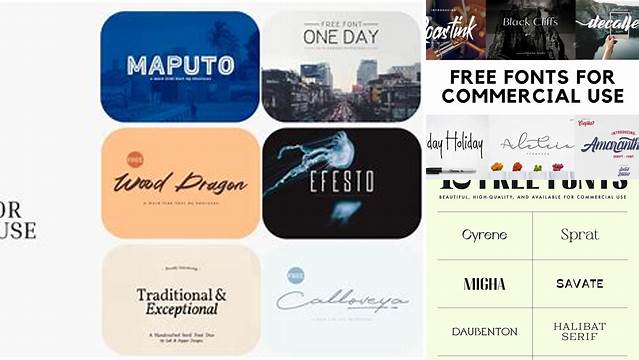
Free Fonts For Commercial Use: Top Typefaces
Hey guys! Finding the perfect font can be a game-changer for your projects, especially when you need something you can use commercially without breaking the bank. Let’s dive into the world of free typefaces for commercial use and explore some awesome options!
What are Free Fonts for Commercial Use?
Free fonts for commercial use are typefaces that you can use in projects that generate income, such as logos, websites, merchandise, and advertisements, without needing to pay any licensing fees. This is a fantastic resource for startups, freelancers, and anyone looking to create professional-looking designs on a budget. Unlike personal use fonts, which restrict usage to non-profit or personal projects, commercial use fonts offer more flexibility and freedom.
Best Websites to Find Free Commercial Fonts
Discovering the best websites to find free commercial fonts is like uncovering a treasure trove for designers and creatives. These platforms offer a wide array of typefaces that are not only aesthetically pleasing but also come with the necessary licenses for commercial use. One of the top contenders is Google Fonts. It boasts an extensive library of fonts, all of which are open-source and completely free for both personal and commercial projects. The user-friendly interface allows you to easily browse and filter fonts based on style, weight, and other properties, making it a go-to resource for many designers. Another great option is Font Squirrel. This website meticulously curates fonts that are 100% free for commercial use, ensuring that you won't run into any licensing issues down the line. Font Squirrel also provides a handy font identifier tool that helps you identify fonts from images, which can be incredibly useful when you're trying to match a specific typeface. DaFont is another popular choice, though it's essential to carefully review the license for each font, as not all fonts on DaFont are free for commercial use. The site features a diverse collection of fonts created by designers from around the world, making it a great place to find unique and quirky typefaces. MyFonts also offers a selection of free commercial fonts, alongside its premium offerings. It's a well-respected platform in the typography community, known for its high-quality fonts and reliable licensing information. Lastly, check out Creative Market, which often has free goods sections where you can find fonts that are available for commercial use for a limited time. Always double-check the license agreement for each font you download to ensure it aligns with your project requirements. These websites are excellent resources for finding the perfect free commercial fonts to elevate your designs without breaking the bank.
Popular Sans-Serif Fonts for Commercial Projects
When it comes to popular sans-serif fonts for commercial projects, you have a plethora of options that can bring a clean, modern, and professional look to your designs. Sans-serif fonts are known for their simplicity and legibility, making them ideal for a wide range of applications, from websites and logos to print materials and advertisements. One of the most beloved sans-serif fonts is Roboto. Developed by Google, Roboto is a versatile and highly readable font that works exceptionally well in both digital and print environments. Its clean lines and geometric shapes make it a great choice for body text, headlines, and user interfaces. Another fantastic option is Open Sans. This humanist sans-serif font, also created by Google, is praised for its friendly appearance and excellent readability across various screen sizes. Open Sans is a staple in web design and is often used for websites, apps, and marketing materials. Lato is another popular sans-serif font for commercial projects. Designed with semi-rounded details, Lato exudes warmth and approachability, making it a great choice for brands that want to convey a sense of friendliness and trustworthiness. Lato is highly versatile and can be used for both headlines and body text. Montserrat is a geometric sans-serif font that has gained significant popularity in recent years. Inspired by urban typography in Buenos Aires, Montserrat has a distinct character and is perfect for creating eye-catching headlines and logos. Its clean and modern aesthetic makes it a favorite among designers. Another noteworthy mention is Raleway. Originally designed as a single-weight display font, Raleway has since been expanded into a full family of weights, making it a versatile choice for various design applications. Its elegant and sophisticated look makes it ideal for high-end brands and luxury products. These popular sans-serif fonts for commercial projects offer a great starting point for your typography journey, providing you with a range of styles and personalities to choose from. Whether you're designing a website, creating a logo, or developing marketing materials, these fonts will help you achieve a professional and polished look.
Timeless Serif Fonts for Business Use
Timeless serif fonts for business use offer a touch of elegance, tradition, and authority to your branding and design projects. Serif fonts, characterized by the small decorative strokes at the end of each character, can convey a sense of sophistication and trustworthiness, making them ideal for businesses that want to establish a strong and reputable image. One of the most iconic serif fonts is Times New Roman. Although it's often considered a default font, Times New Roman's classic and timeless design makes it a reliable choice for various applications, from books and newspapers to formal documents and corporate communications. Another excellent option is Georgia. Designed specifically for screen readability, Georgia is a serif font that excels in digital environments. Its clear and legible letterforms make it a great choice for websites, blogs, and online publications. Playfair Display is a timeless serif font for business use that exudes elegance and sophistication. With its high contrast and delicate serifs, Playfair Display is perfect for creating eye-catching headlines, logos, and branding materials for luxury brands. Another noteworthy mention is Merriweather. This serif font is designed with screen readability in mind, making it a great choice for websites and digital publications. Merriweather's slightly condensed letterforms allow for efficient use of space, making it ideal for long-form content. Bitter is a robust serif font that is specifically designed for comfortable reading on computer screens. Its sturdy letterforms and clear details make it a great choice for body text, ensuring a pleasant reading experience for your audience. These timeless serif fonts for business use provide a solid foundation for your typography choices, offering a range of styles and personalities to suit your brand's identity. Whether you're creating a logo, designing a website, or developing marketing materials, these fonts will help you convey a sense of professionalism and credibility.
Monospace Fonts for Coding and Design
Monospace fonts for coding and design are essential tools for developers, programmers, and designers who require consistent character widths for readability and alignment. In monospace fonts, each character occupies the same horizontal space, which is crucial for maintaining the structure and clarity of code, tabular data, and other technical documents. These fonts are designed to ensure that every character, whether it's a letter, number, or symbol, takes up the same amount of space, creating a uniform and easily readable text. One of the most popular monospace fonts for coding and design is Courier New. This font has been a staple in the world of programming for decades, known for its clear and distinct letterforms that make it easy to differentiate between similar characters, such as the lowercase